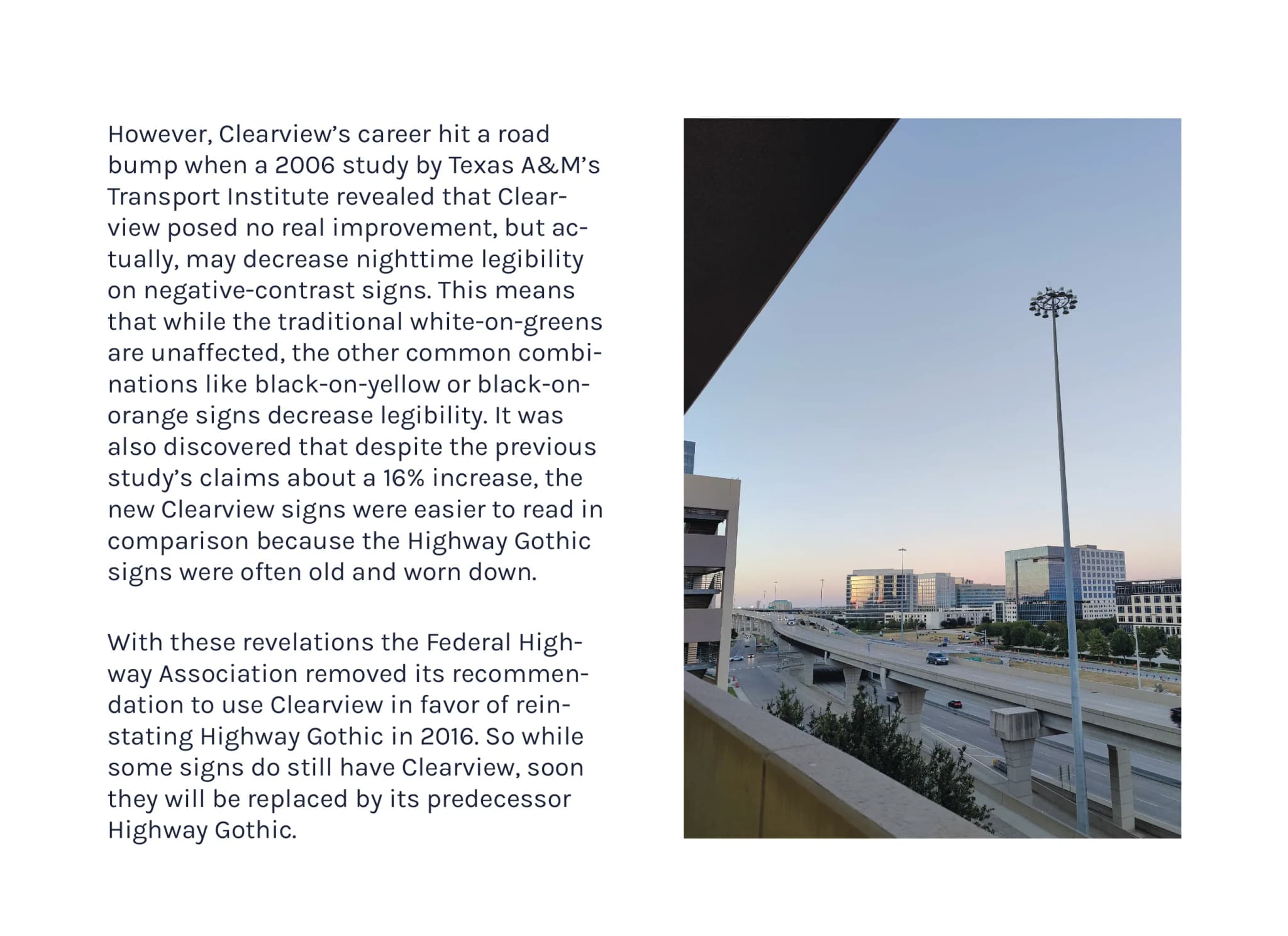
This a page from a book made by Allie Zhang called On My Way Home. This body text is very informational, which is good with Karla, as it is a san-serif typeface with rounder shapes.